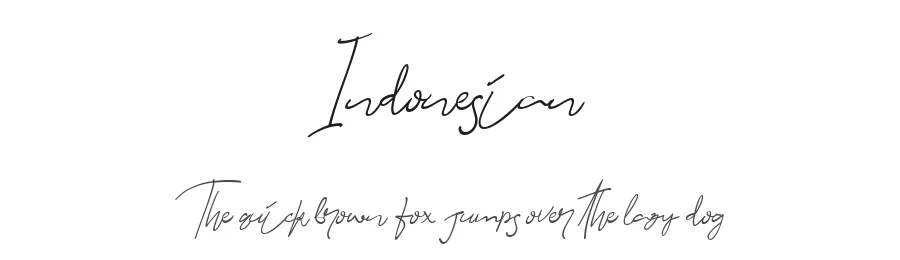
About Gabriel Font
Gabriel is a fashionable script font. This font is neatly crafted and highly detailed. Whatever the topic, this font will be a wonderful asset to your font library, as it has the potential to enhance any creation.
Gabriel Font is a script font that shines as a display or heading face. Pair it with a clean sans-serif or serif font for body text β the contrast creates a clear hierarchy while the two styles stay balanced and easy to read.
Gabriel Font